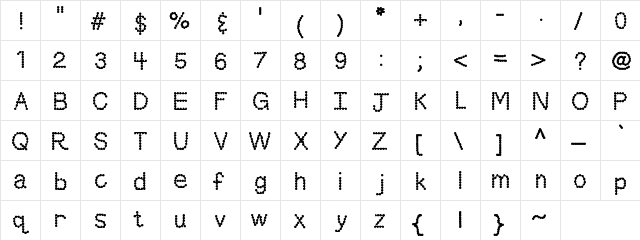
KBSkittledUp Medium Font Preview
KBSkittledUp Medium
KBSkittledUp Medium Font Details
Design Context for KBSkittledUp Typeface
KBSkittledUp is a composed and adaptable typeface that performs quietly and consistently across a wide range of design contexts.
Pro Tip: Pair KBSkittledUp with a font of contrasting weight or personality to build a more expressive typographic hierarchy.